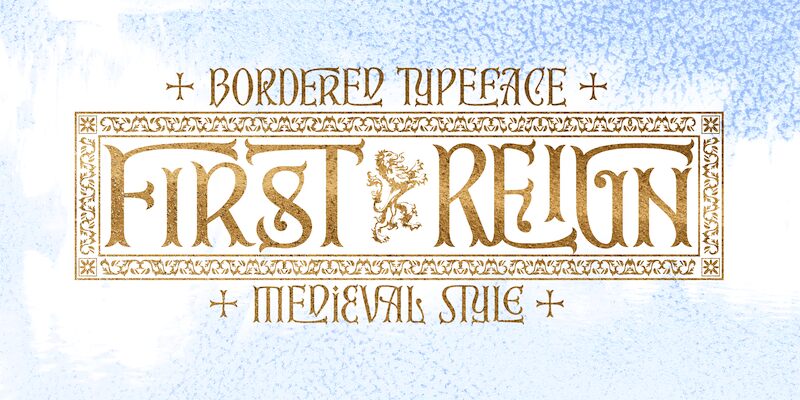
First Reign font is a medieval-style typeface designed by Mans Greback.
To make heraldic symbols, copy these icons: ? ? ? ? ? ? ? + ♖ ✝ ⚓ * ⚔
Alternatively write %A %B %C ... etc to create the heraldry. (Download required.)
Dragon, Horse, Crown, Sword, Eagle, Deer, Cross, Anchor are some of the logos.
Use [ ] for side borders.
Example: [Royal⚔Thrones]